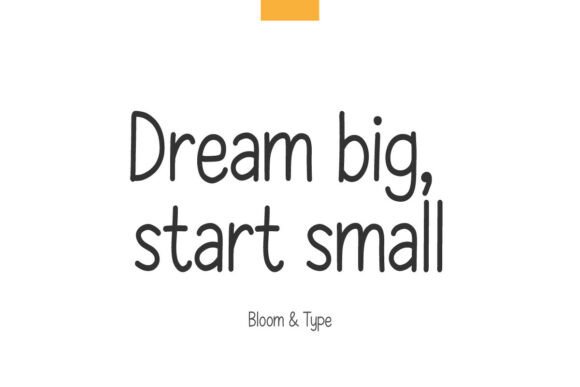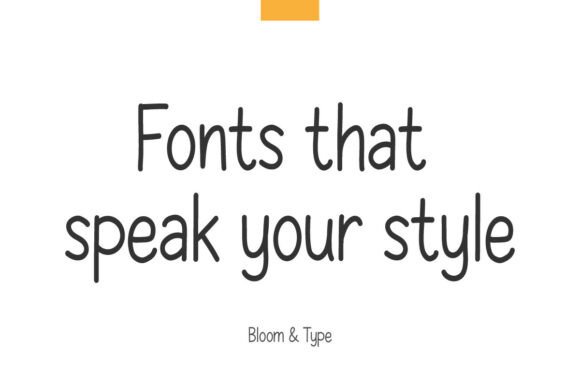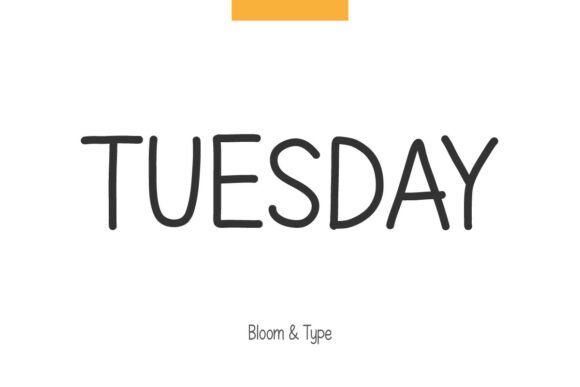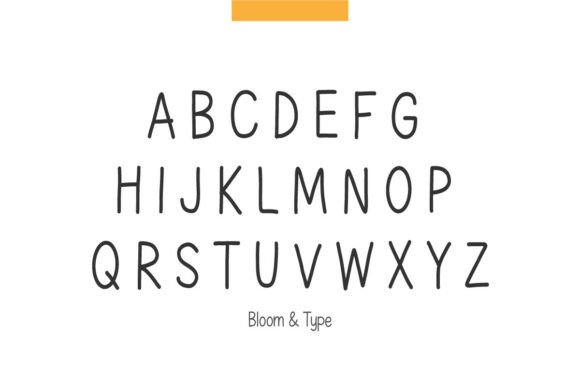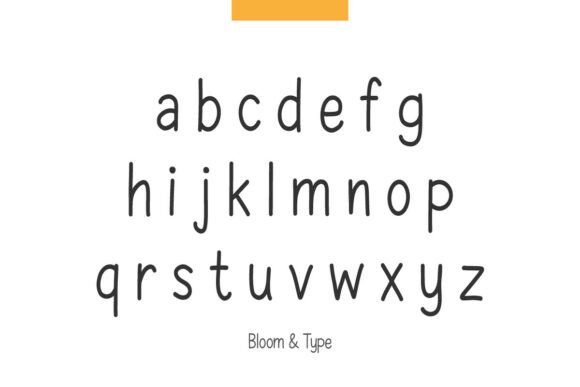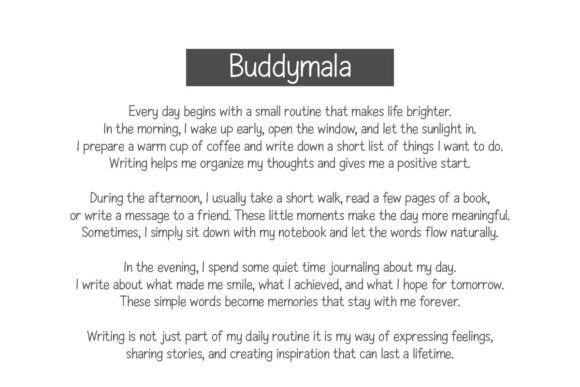
The Perfect Pen Stroke: Unleashing the Charm of the Buddymala Font
There’s something magical about the first spark of creativity – the moment when a blank page transforms into a world of possibilities. You’re brainstorming ideas, scribbling notes, and experimenting with fonts until the perfect combination clicks. That’s when you discover the Buddymala Font, a playful handwritten font designed to infuse your projects with warmth and friendliness.
This versatile font is more than just a design element; it’s a conversation starter that adds a personal touch to your work. With its smooth curves and casual flow, Buddymala Font captures the essence of natural handwriting while maintaining clarity and readability. Whether you’re designing logos, branding materials, or social media content, Buddymala adapts effortlessly to different styles, making it a valuable asset for any designer looking to add a touch of authenticity and charm to their projects.
Buddymala Font Key Features
- Font Family: The Buddymala font is a sans-serif typeface, designed to be clean and modern.
- Character Set: Supports a wide range of languages, including Latin, Cyrillic, and Greek alphabets, making it suitable for global applications.
- Unique Characteristics: Features a unique blend of geometric and organic elements, resulting in a distinctive and modern aesthetic.
- Font Weight: Available in various weights, including light, regular, bold, and black, allowing for flexibility in typography and design.
Buddymala Font Review
At first glance, the Buddymala font seems to be a fun and quirky addition to any design project. ✨ Its playful and expressive nature can add a lot of personality to your work, making it perfect for projects that need a bit of whimsy.
The font’s letterforms are well-designed, with a clear and legible structure that makes it easy to read. ✨ The bold weight is particularly striking, and the font’s ability to be used in a variety of contexts, from headlines to body text, is a definite plus.
Overall, I would say that the Buddymala font is a solid addition to any designer’s toolkit, but it may not be the best choice for every project. ✨ If you’re looking to add a bit of personality to your work, it’s definitely worth checking out. Just be aware of its limitations, and use it judiciously.
Getting the Most Out of Buddymala Font
For optimal results, use Buddymala font in conjunction with bold or italic styles to add emphasis and create visual interest.
Experiment with different font sizes and colors to create a unique look.
Buddymala font is ideal for:
Designing children’s books or educational materials.
Creating playful and engaging social media graphics.
Adding a touch of whimsy to business or marketing materials.
Alternatives to Buddymala Font for Designers
Great Vibes is a modern, elegant script font perfect for creating a sophisticated and stylish look. It’s ideal for use in logos, branding, and titles. Great Vibes has a similar feel to Buddymala Font, but with a more refined and polished appearance.
Dancing Script is a beautiful, handwritten font that adds a touch of elegance and sophistication to any design. It’s suitable for use in invitations, weddings, and other creative projects. Dancing Script has a more flowing and dynamic feel compared to Buddymala Font, making it perfect for projects that require a sense of movement and energy.
Lobster is a fun, playful font that’s perfect for use in casual designs, such as menus, posters, and advertisements. It has a similar casual feel to Buddymala Font, but with a more laid-back and relaxed appearance.